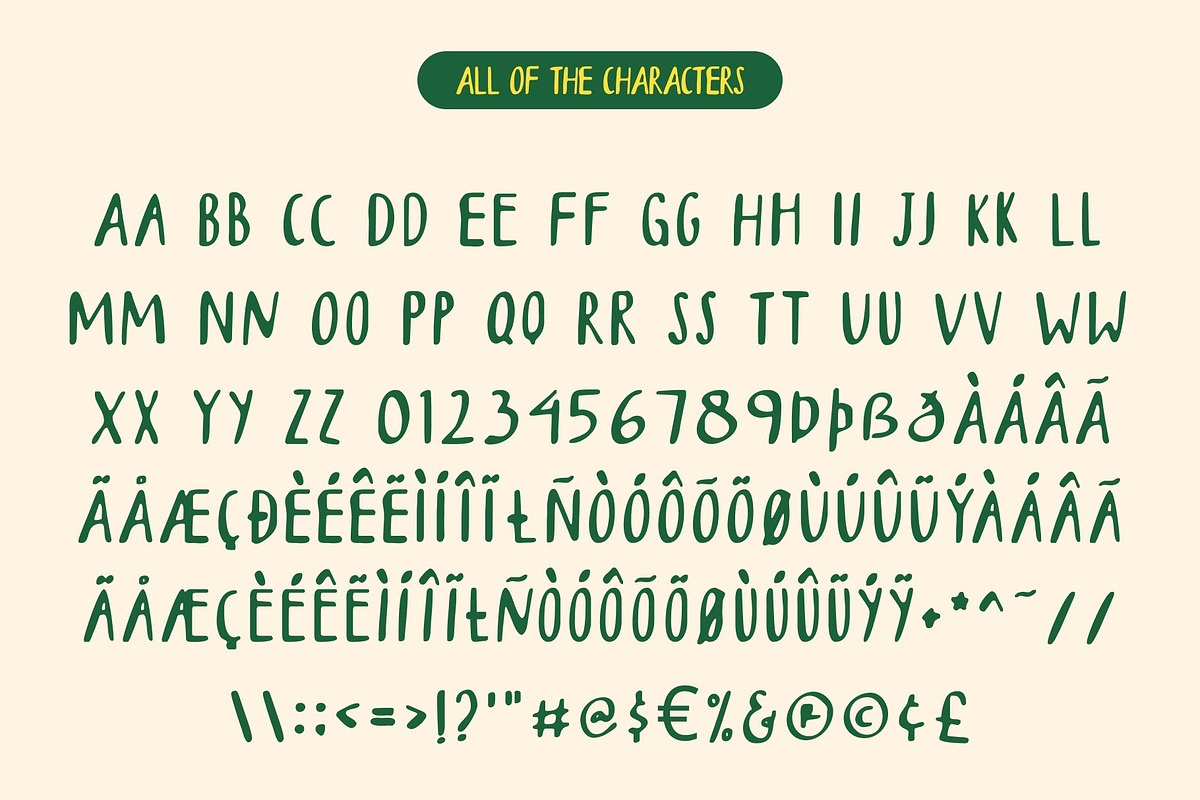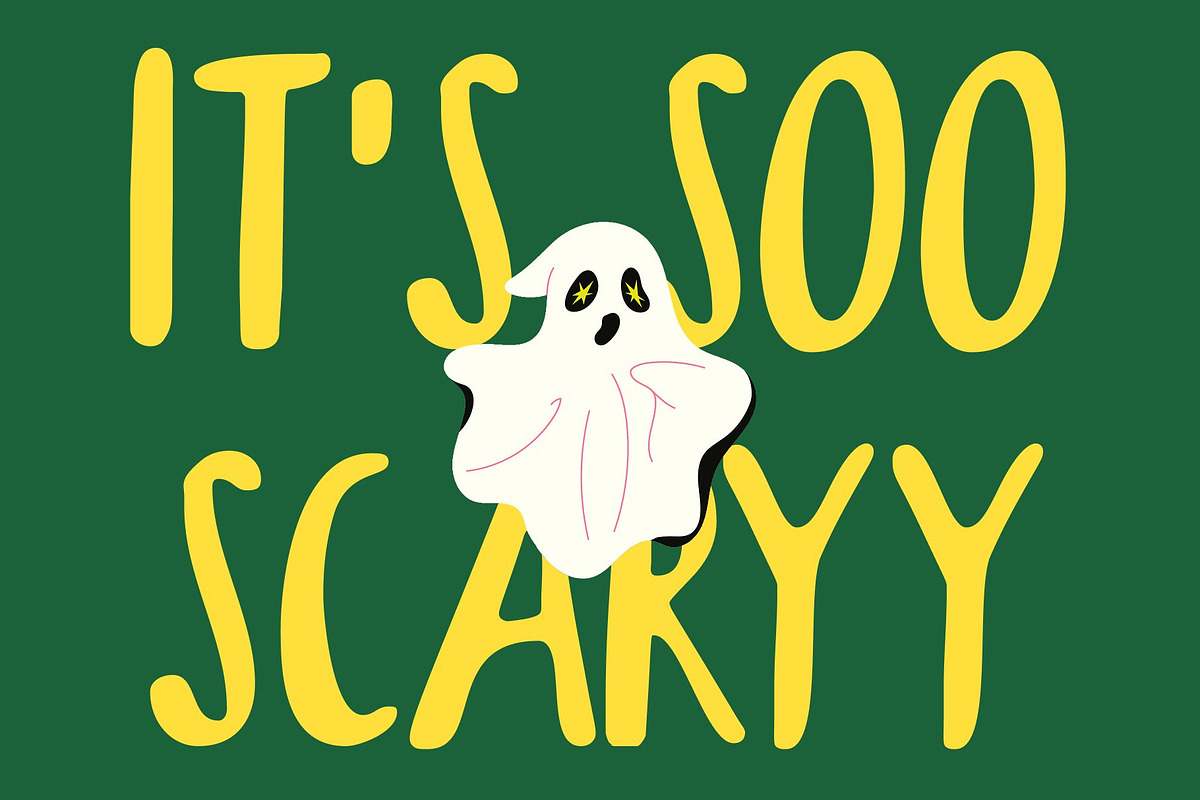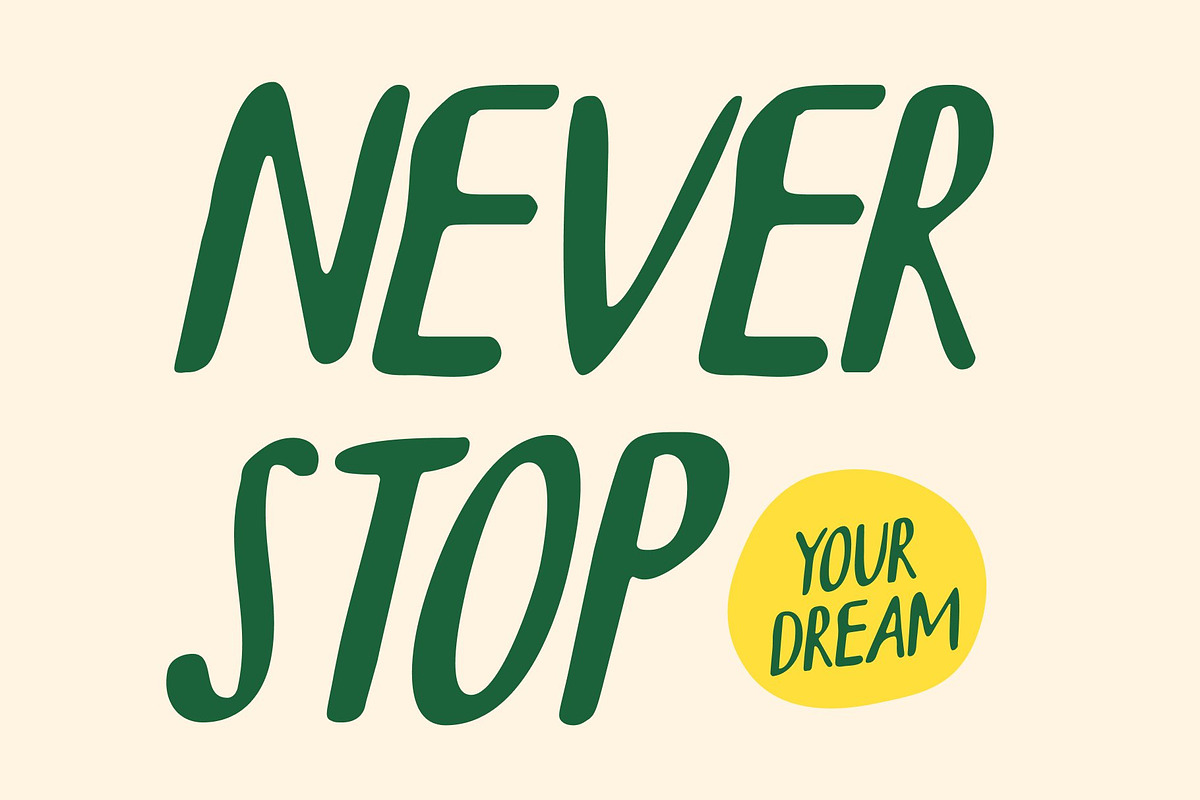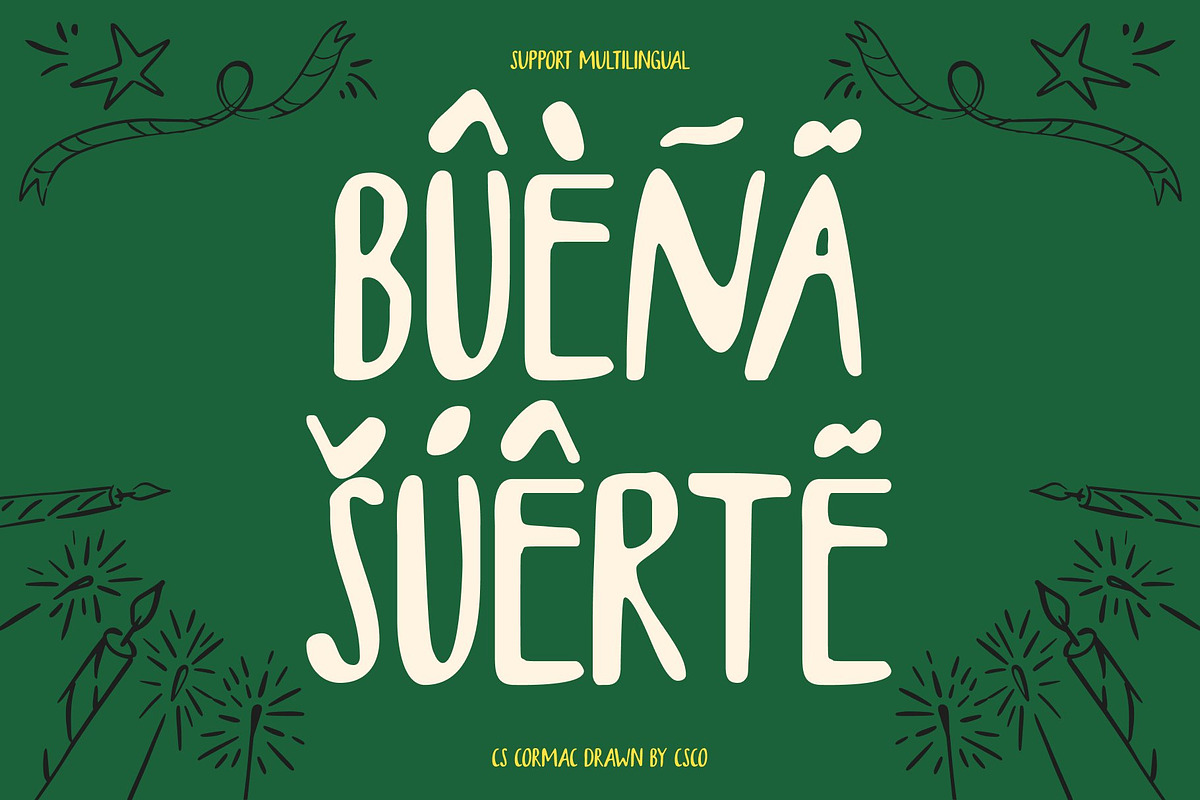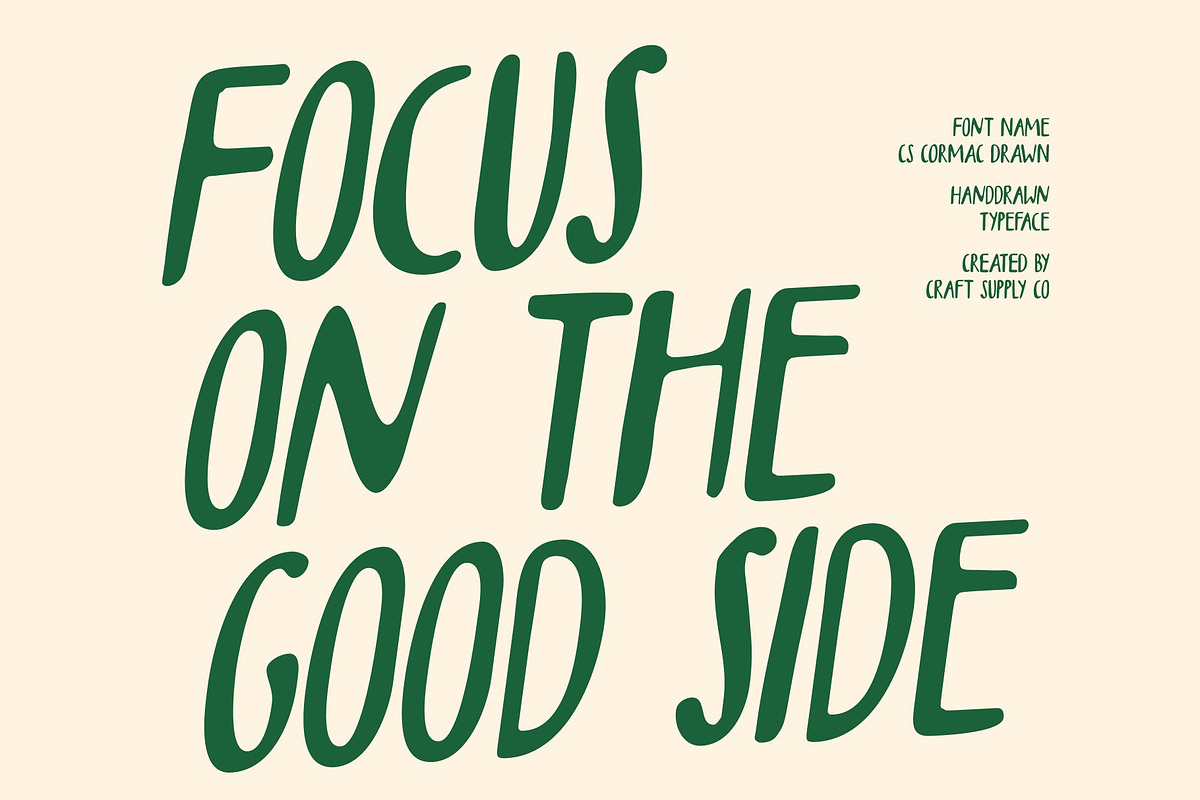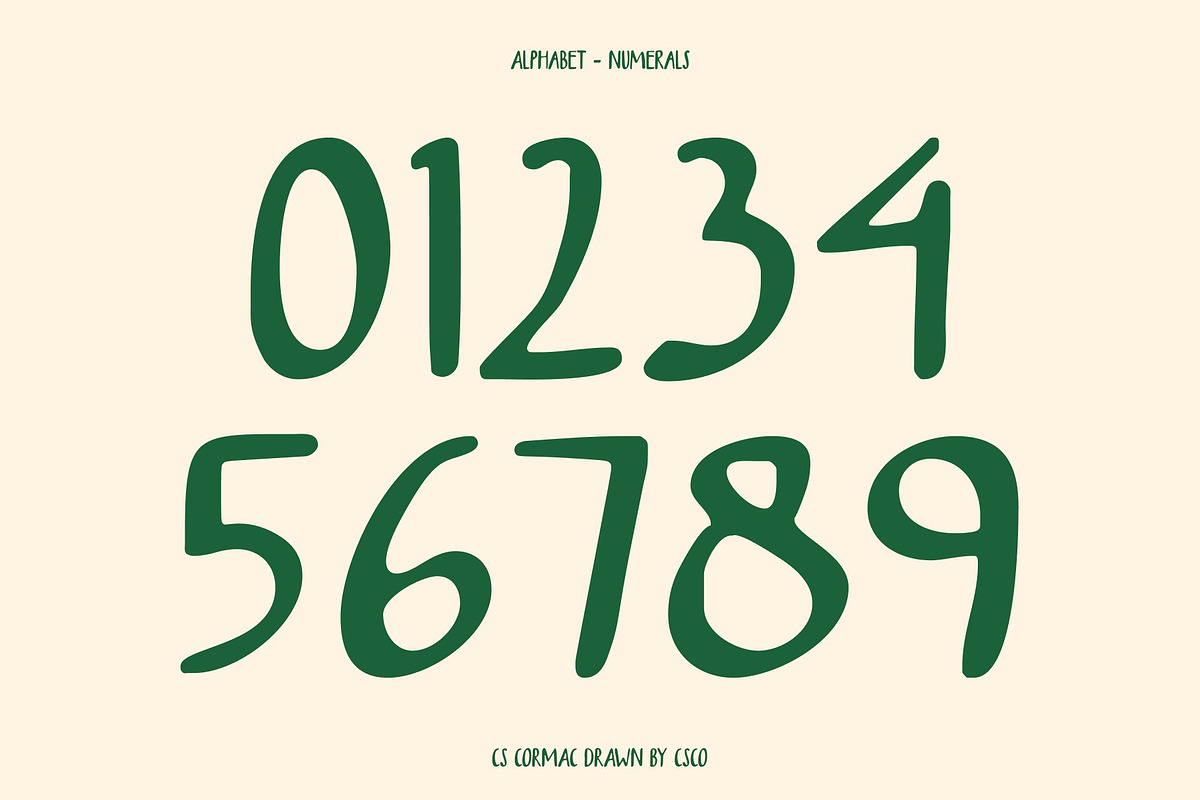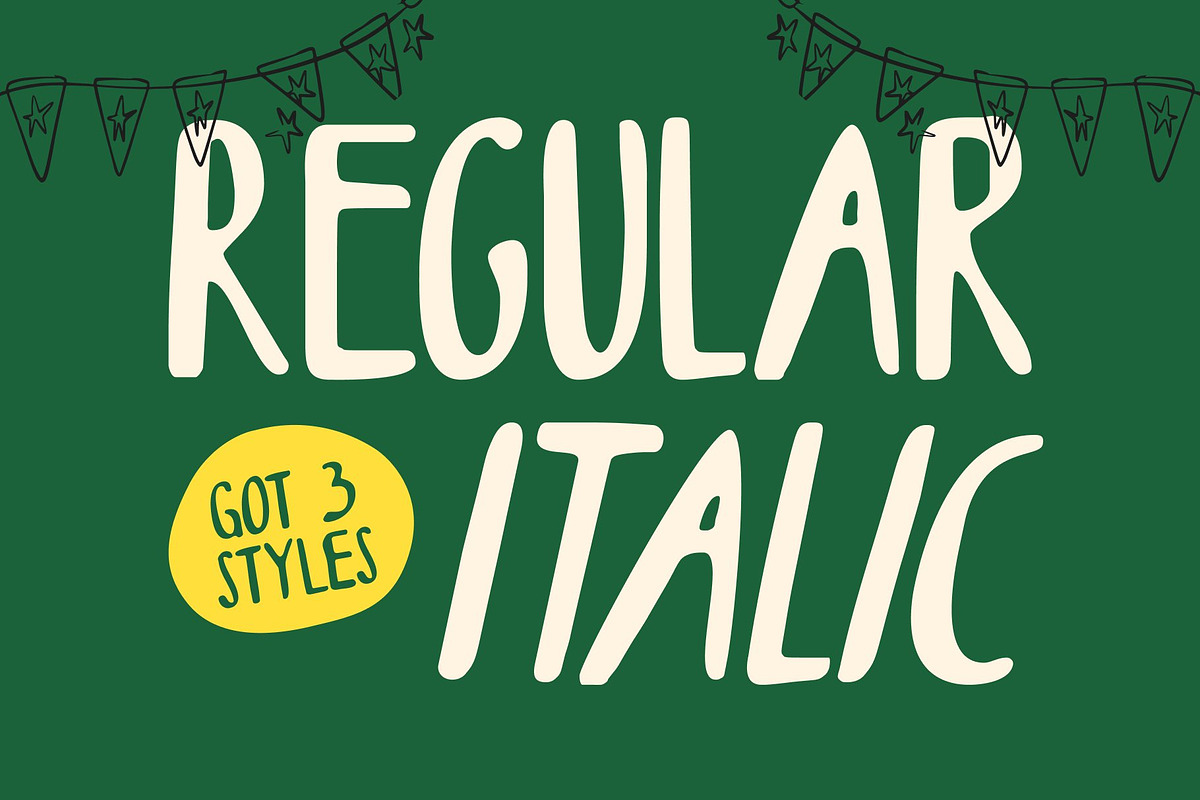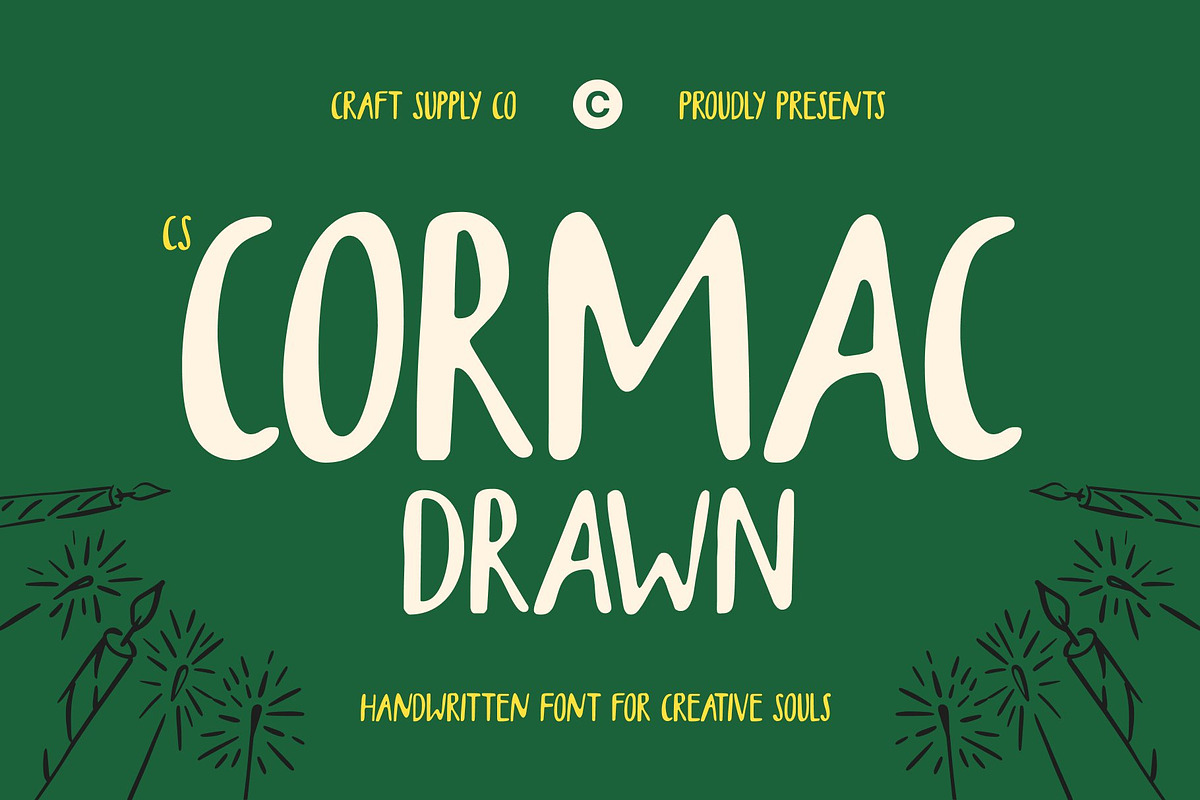
CS Cormac Drawn
CS Cormac Drawn – Marker Sans Serif with Natural Texture and Modern Flow
Slim Form with Expressive Character This is a marker-style sans serif font defined by its slim proportions and fluid construction. Its narrow form gives it a clean, modern silhouette, while the natural flow of each letter adds movement and personality. This balance creates typography that feels light, agile, and expressive without losing clarity.
Handwritten Texture for Authentic Warmth The hand-drawn marker texture brings an organic, human touch to the font. Subtle irregularities and natural stroke variation make each character feel genuinely handwritten, adding warmth and authenticity. This drawn effect gives this font a unique character that feels personal, relaxed, and visually engaging.
Balanced Between Polished and Expressive This font sits comfortably between refinement and creativity. Its sans serif structure keeps the design polished and readable, while the marker-inspired strokes introduce spontaneity and charm. This balance makes the font versatile expressive enough to stand out, yet clean enough for professional use.
Perfect for Editorial, Branding, and Digital Design Ideal for editorials, branding systems, social media content, and digital interfaces, this font adapts effortlessly across creative platforms. Whether used for headlines, logos, or supporting text, it delivers a modern, approachable voice with distinctive handwritten character.
- CS Cormac Drawn Regular
- CS Cormac Drawn Italic